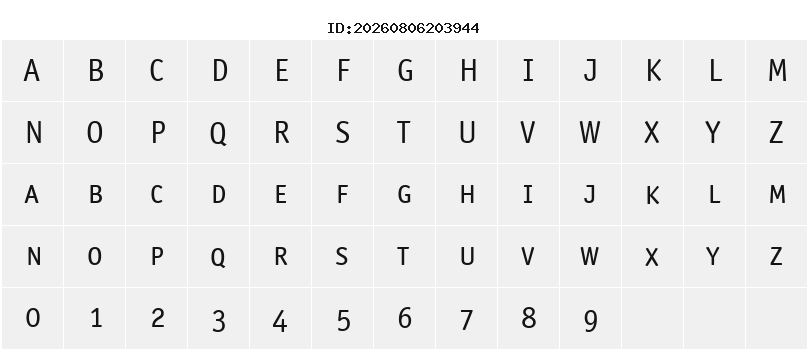
• Font Name: OfficinaSanSCITCTT
• Full Font Name: OfficinaSanSCITCTT
• Designer: Erik Spiekermann / Ole Schaefer
• Manufacturer: International Typeface Corporation
About OfficinaSanSCITCTT.ttf
OfficinaSanSCITCTT.ttf is a modern, elegant sans-serif font designed for ultimate readability and visual harmony. Perfect for branding, headlines, web design, and print materials.